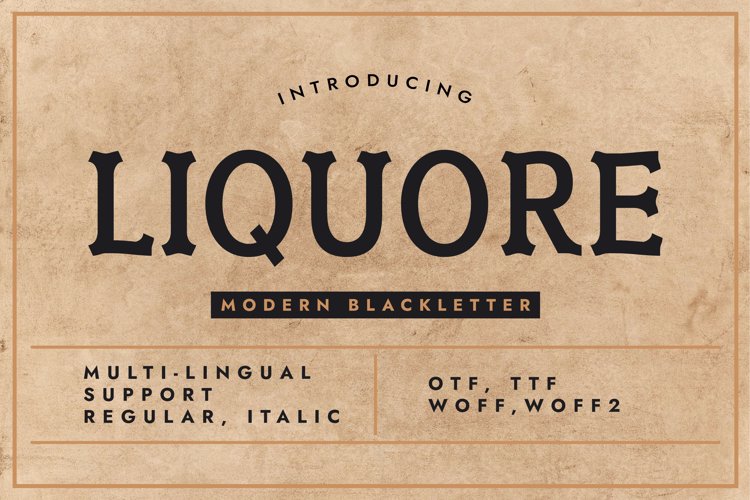
LIQUORE Font
π¨ Font Name: Liqore by Minimalist Art Studio
π¨ Font Description: Liqore is a modern blackletter serif with vintage grit and multilingual supportβideal for packaging, gothic branding, and premium label design.
β Complete Latin set + multilingual diacritics
β Alternates, stylistic sets & ligatures
β Numbers, small caps, and extended punctuation
β Bonus italics and family styles